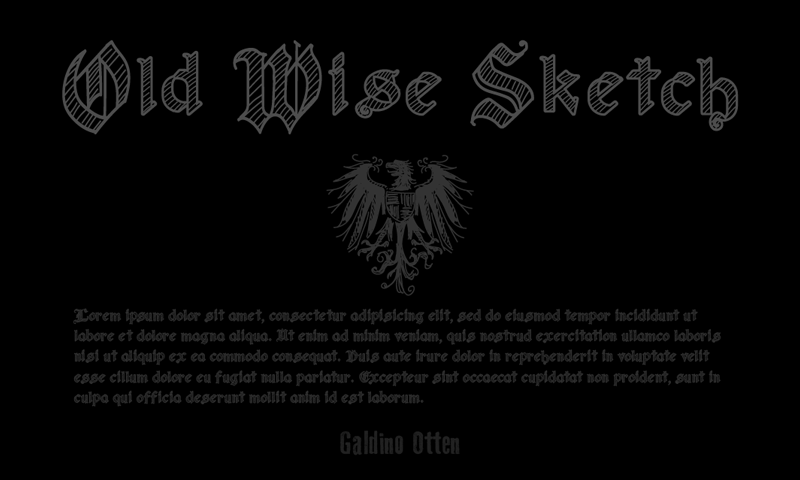
Old Wise Sketch Font
Introducing Old Wise Sketch Font. Old Wise Sketch designed and shared by Galdino Otten. This is another hand drawn quick-sketch font. Old Wise Sketch is good for any project in which you would like to imitate chalk or sketch writing. It has formal shapes, but reckless contents.